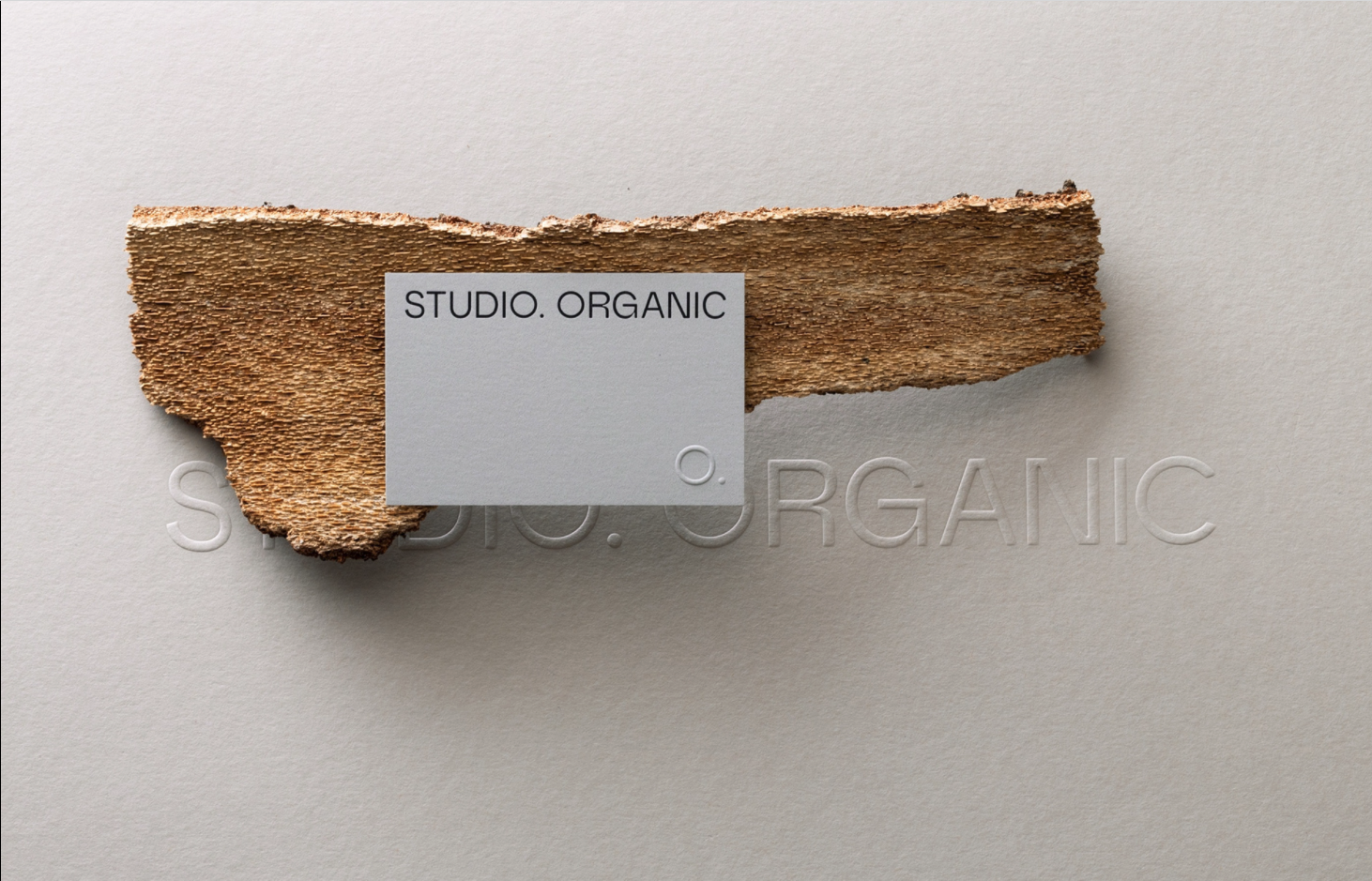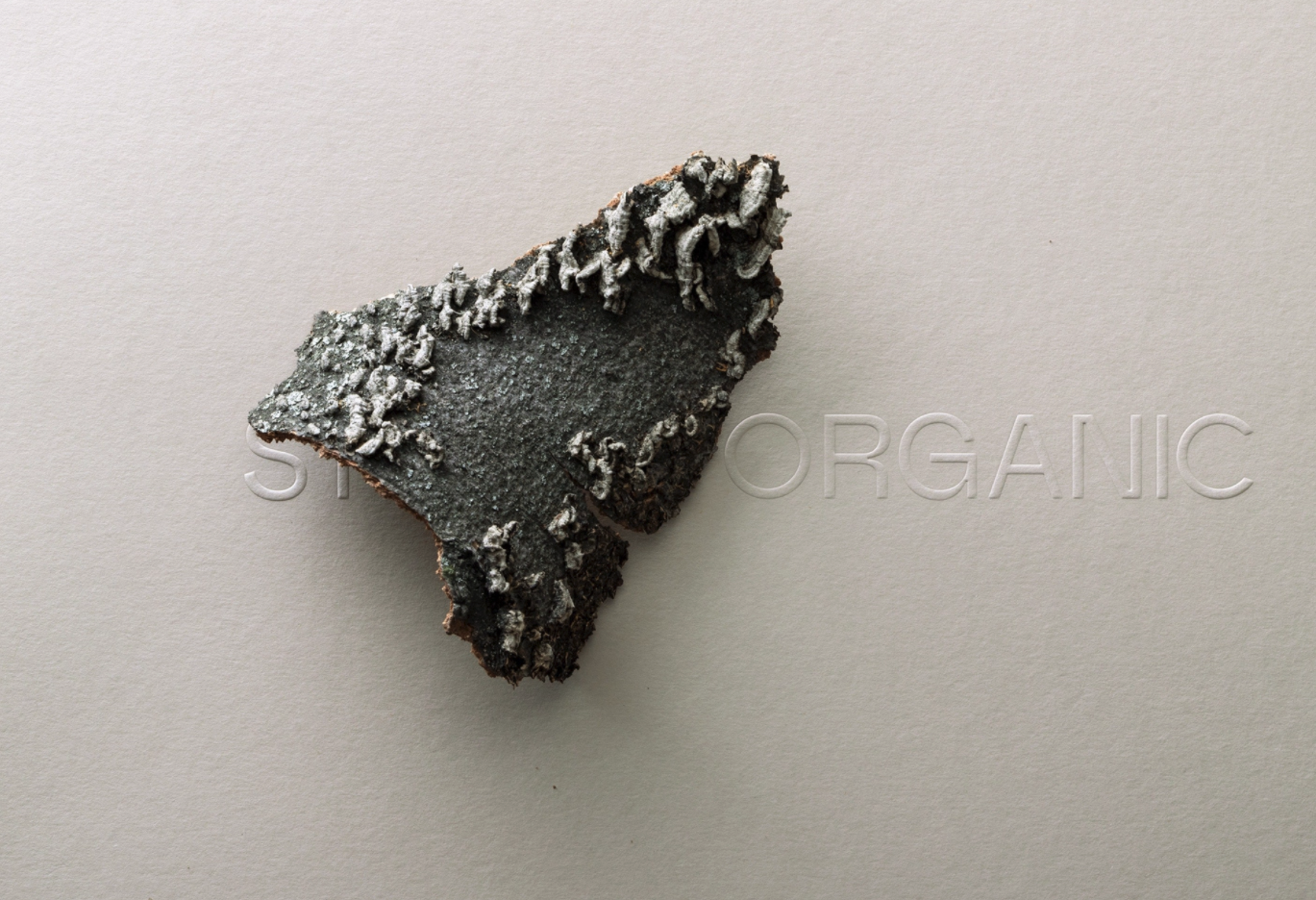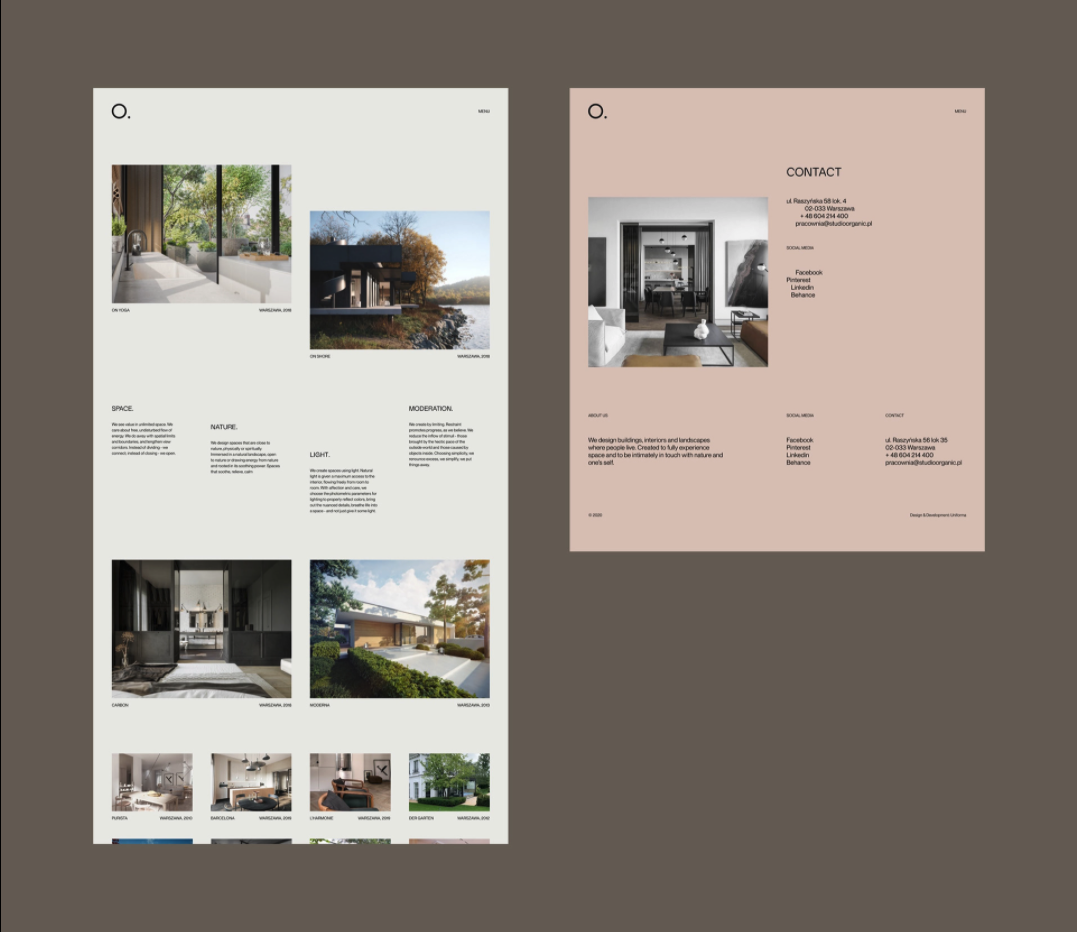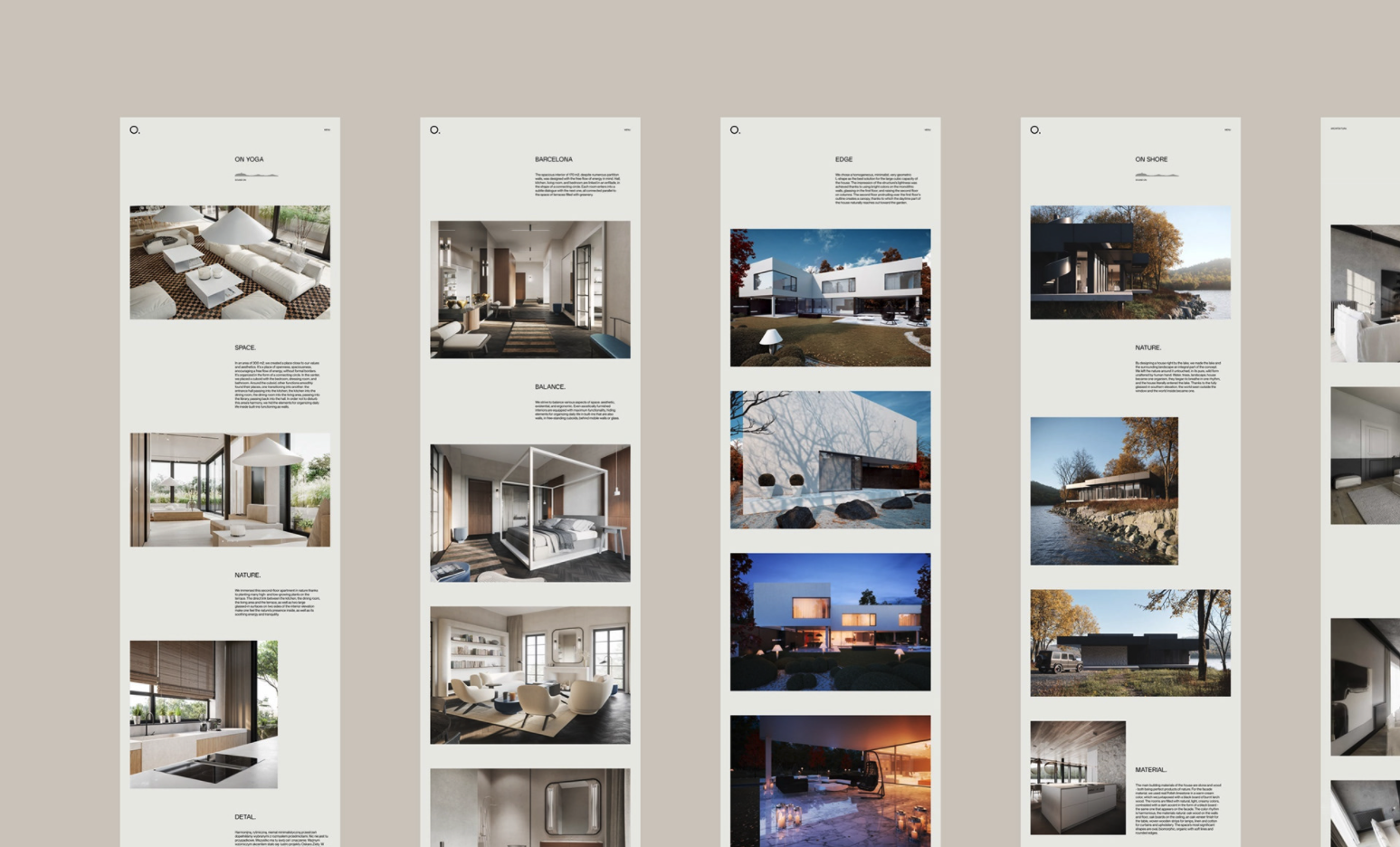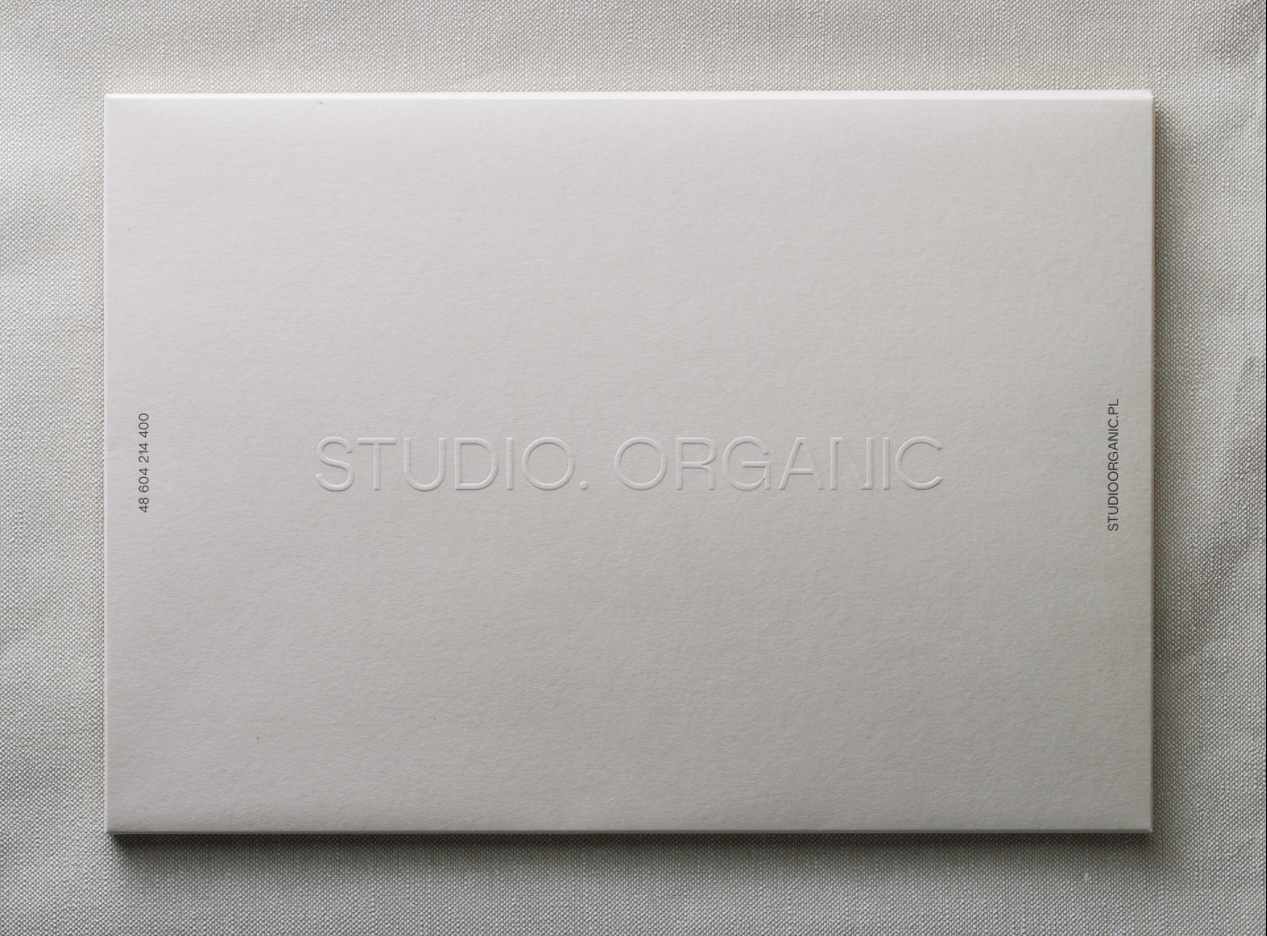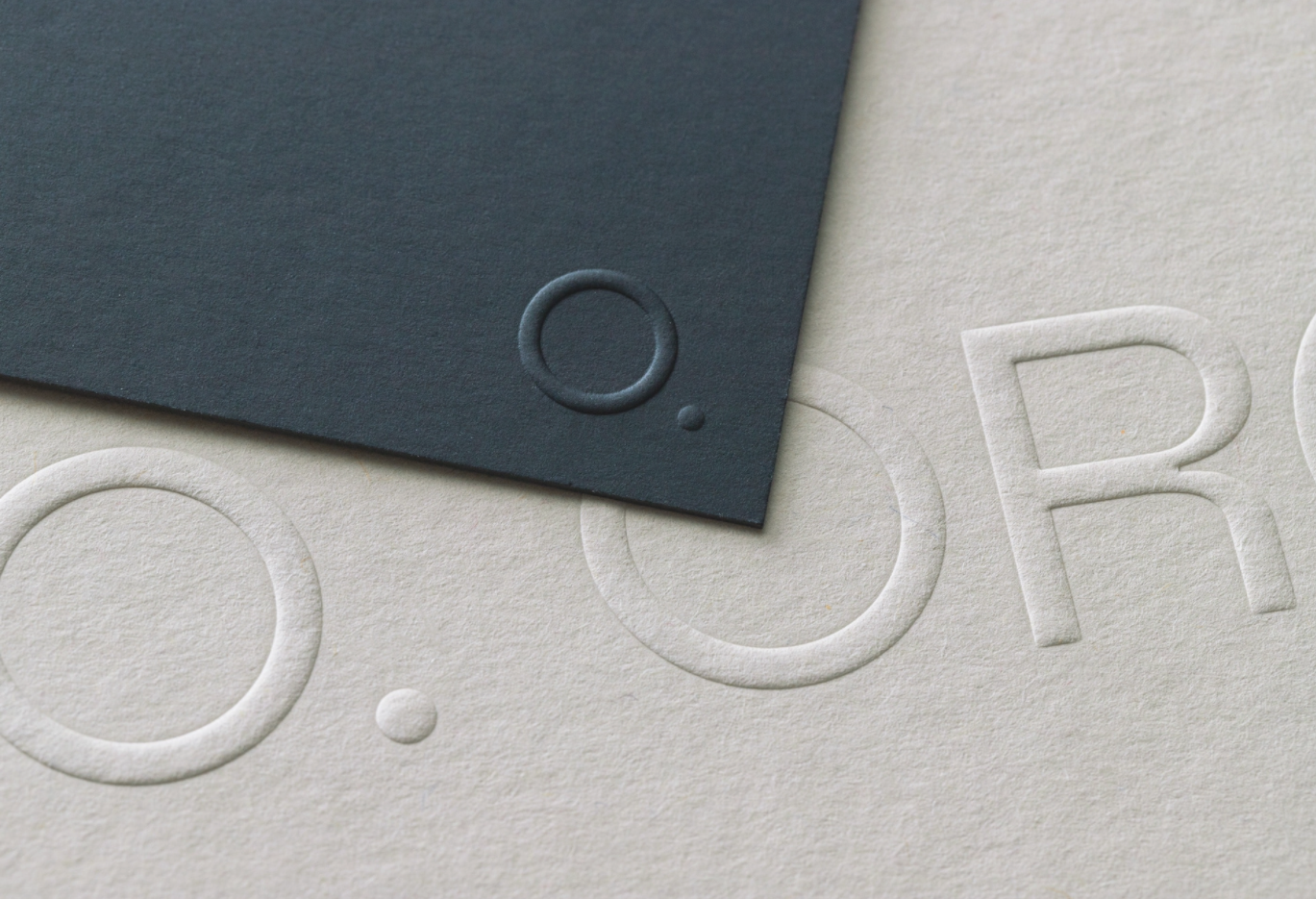
Font in use:
Non Natural Grotesk
Studio Organic
Studio Organic is an architect’s duo. They design buildings, interiors and landscapes where people live to fully experience space and to be intimately in touch with nature and one’s self.
Call it what you like. A haven, an oasis, a dwelling or a shelter. Organic Shelter is in every one of them. Wherever the shape and function of space promotes being present, being with one’s self, building a relationship with nature. It gives you relief, soothes, helps you be calm - or simply be.
Visual identity reflects those feelings. It’s subtle, almost not there. On the other hand, characteristic typography and colors whisper a story in the background.